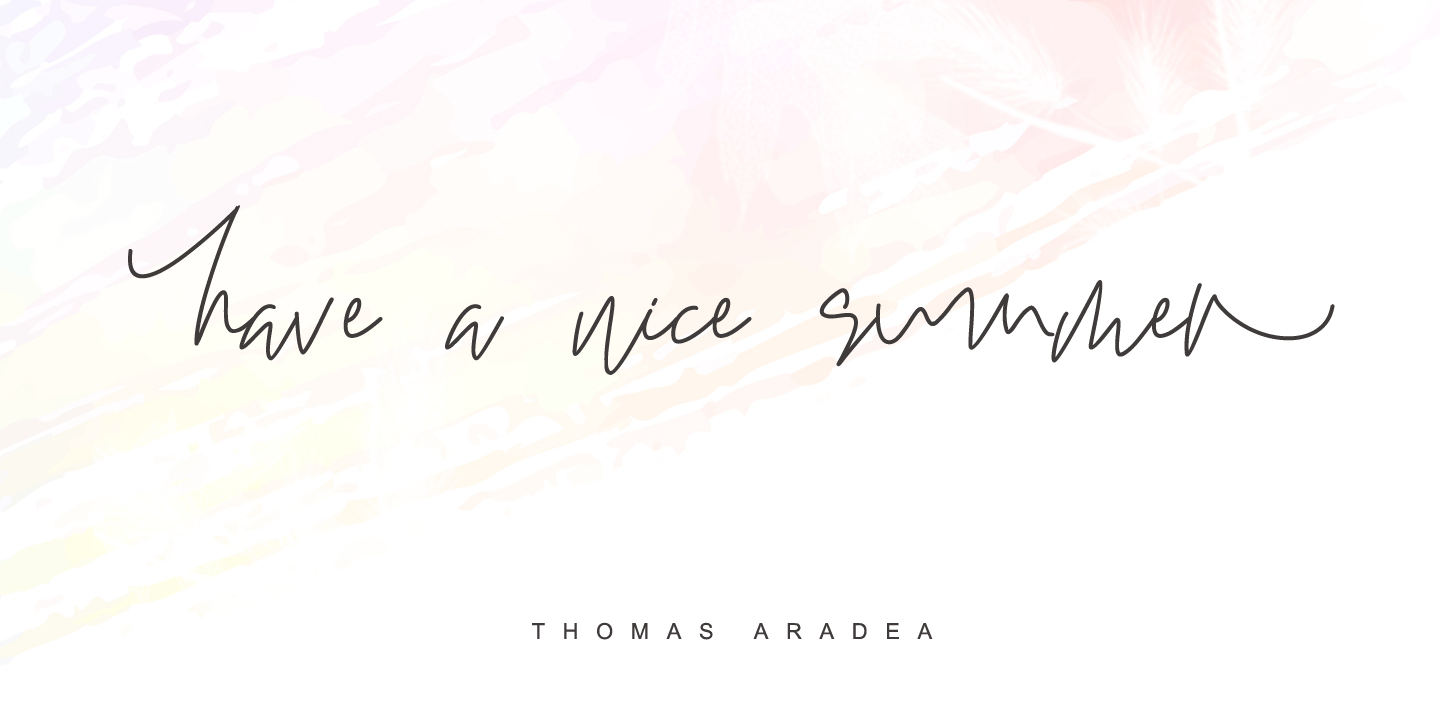
Summer Cherry Free Download
Summer Cherry Font Free Download
Summer Cherry Font is perfect for sweet bakery branding, fruit smoothie shop signage, fresh summer market materials, charming café communications, delightful dessert packaging, vibrant fruit stand promotions, cheerful ice cream parlor designs, and refreshing summer beverage campaigns.
What makes Summer Cherry Font exciting is its sweet deliciousness and fresh summer charm that captures the juicy essence of ripe cherries and warm sunny days. This delightful typeface combines fruity playfulness with elegant readability, creating letters that burst with natural sweetness and seasonal joy. The font's cherry-inspired character details and fresh aesthetic make it an ideal choice for brands seeking to communicate freshness, sweetness, and delightful summer experiences.
Summer Cherry Font family includes Regular, Bold, Light, Sweet, Fresh, and Script variations, plus decorative fruit elements and summer ornaments. Each style maintains the font's fruity character while providing comprehensive flexibility for creating sweet design systems and refreshing brand communications that celebrate natural freshness and summer delight.
Seasonal design specialists consistently choose Summer Cherry Font Free Download for projects requiring fresh appeal and sweet visual impact. This remarkable typeface has gained recognition among food businesses, summer brands, and seasonal lifestyle companies worldwide. The font's ability to convey sweetness and fresh summer energy makes it perfect for brands operating in food service, seasonal products, and refreshing lifestyle markets.
The design philosophy behind Summer Cherry Font emphasizes natural sweetness and summer freshness. Its letterforms feature organic curves and carefully balanced proportions that reflect the natural beauty and delicious appeal found in fresh summer fruits and seasonal harvests. The font's distinctive elements include fruity flourishes and sweet character variations that create immediate emotional connection with audiences seeking fresh, natural, and delightful experiences.
Creative agencies specializing in food and seasonal branding frequently select Summer Cherry Font for clients requiring fresh communication and sweet brand expression. The font's versatility allows seamless integration into comprehensive summer branding systems, from fruit market campaigns to seasonal dessert launches, ensuring consistent brand personality across all fresh and sweet touchpoints.
The technical execution of Summer Cherry Font demonstrates meticulous attention to seasonal typography requirements and food industry design standards. Advanced OpenType features include contextual alternates and sweet ligatures that enhance creative possibilities for fresh designs. The font's comprehensive character set and fruit symbol library make it suitable for international summer campaigns requiring authentic fresh typography with global seasonal appeal.